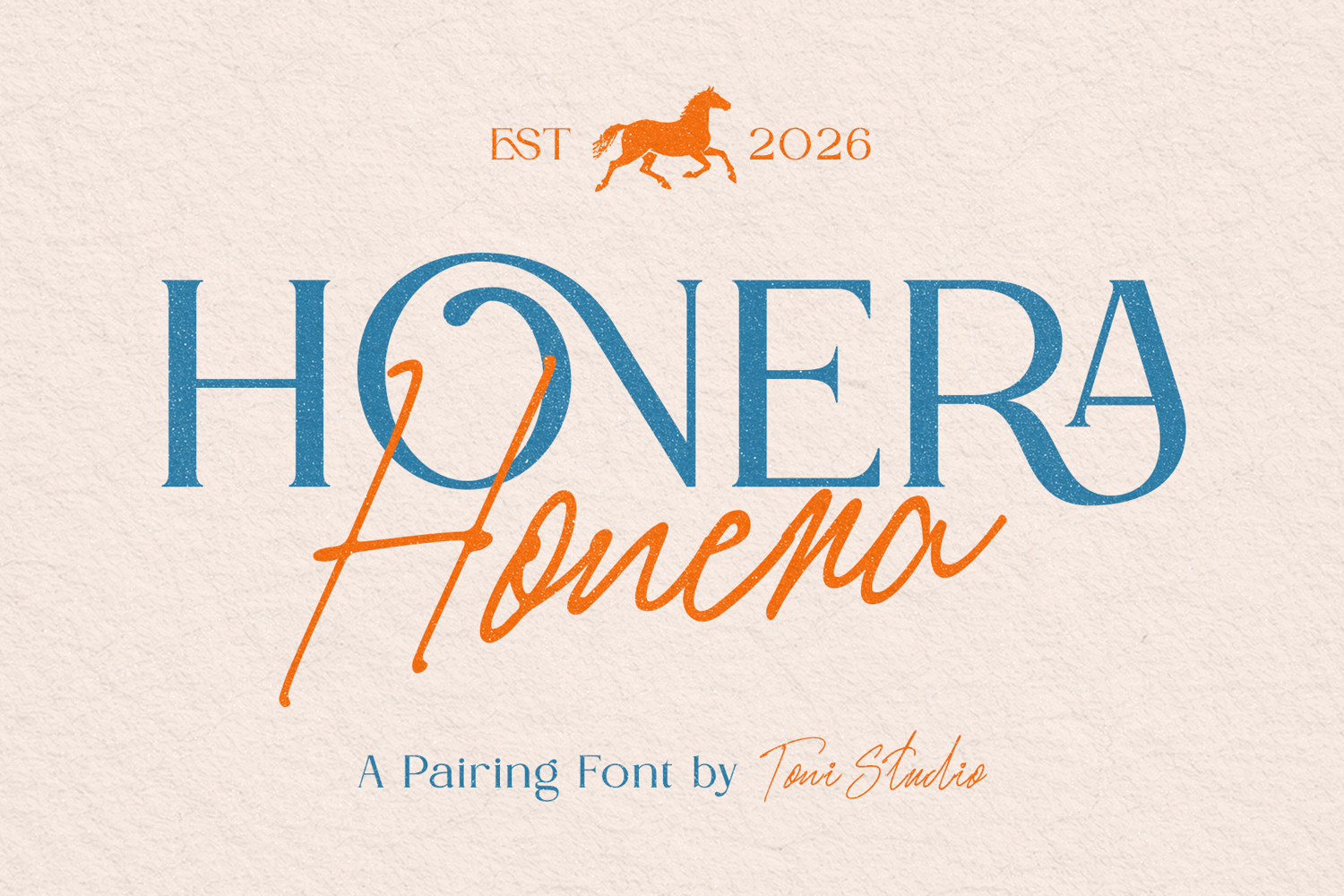
Honera || modern font duo
Honera is a beautifully crafted font duo that combines a refined serif typeface with a flowing handwritten script. This pairing creates a perfect harmony between classic elegance and modern personality, making it ideal for sophisticated and stylish design projects.
- Serif + Script font duo
- Numerals & Punctuation
- Elegant handwritten style
- Multilingual support
Honera is the perfect choice for designers who want an elegant yet expressive typography combination in one complete package.